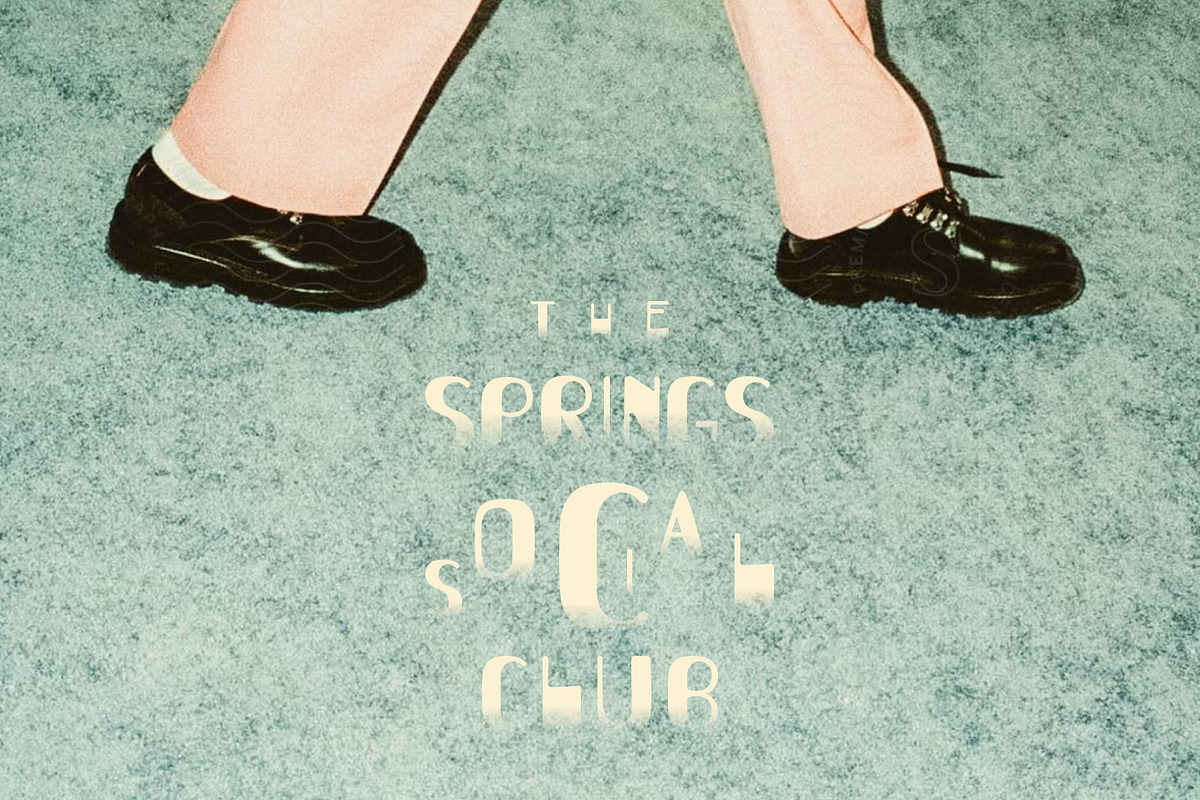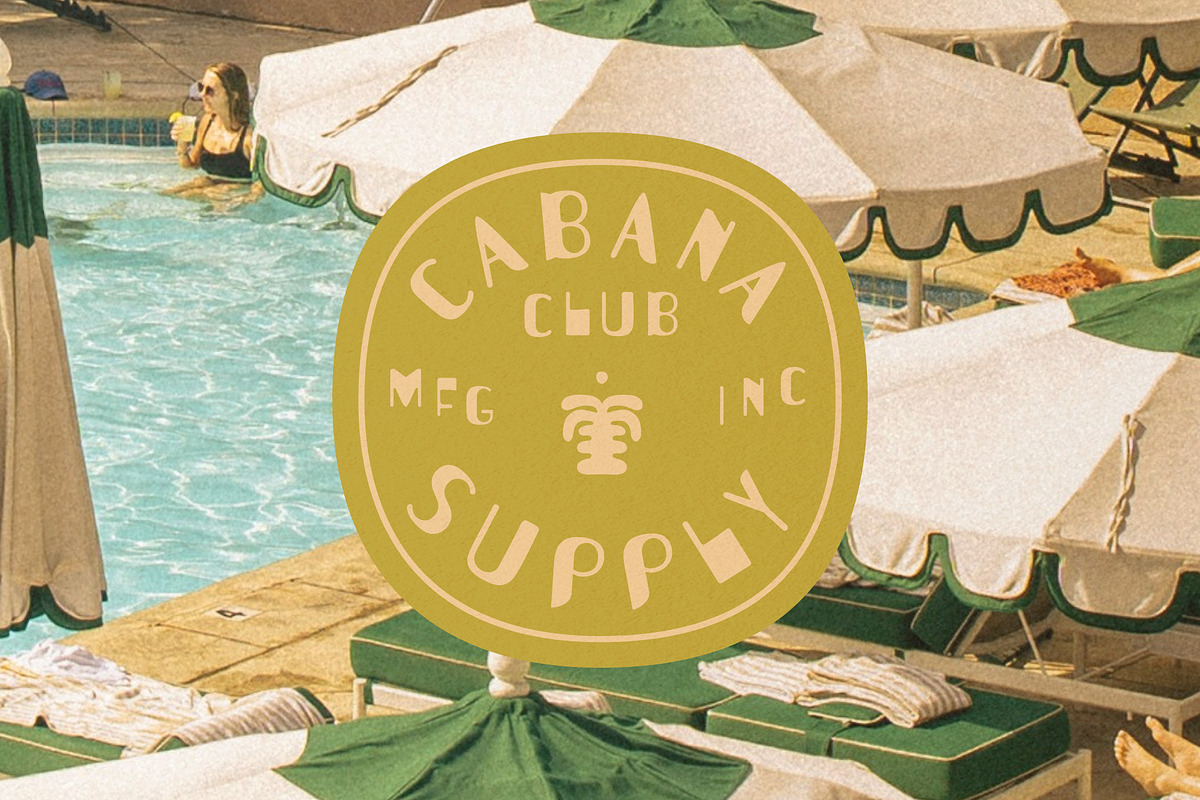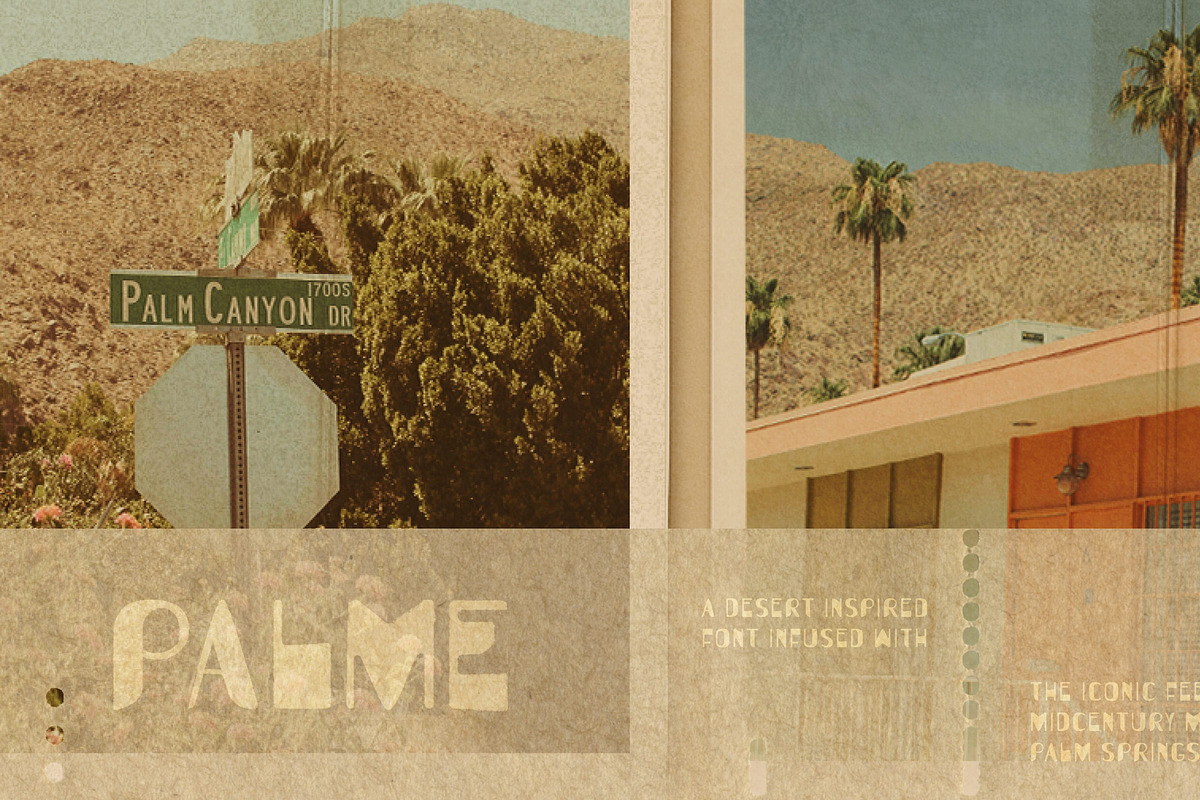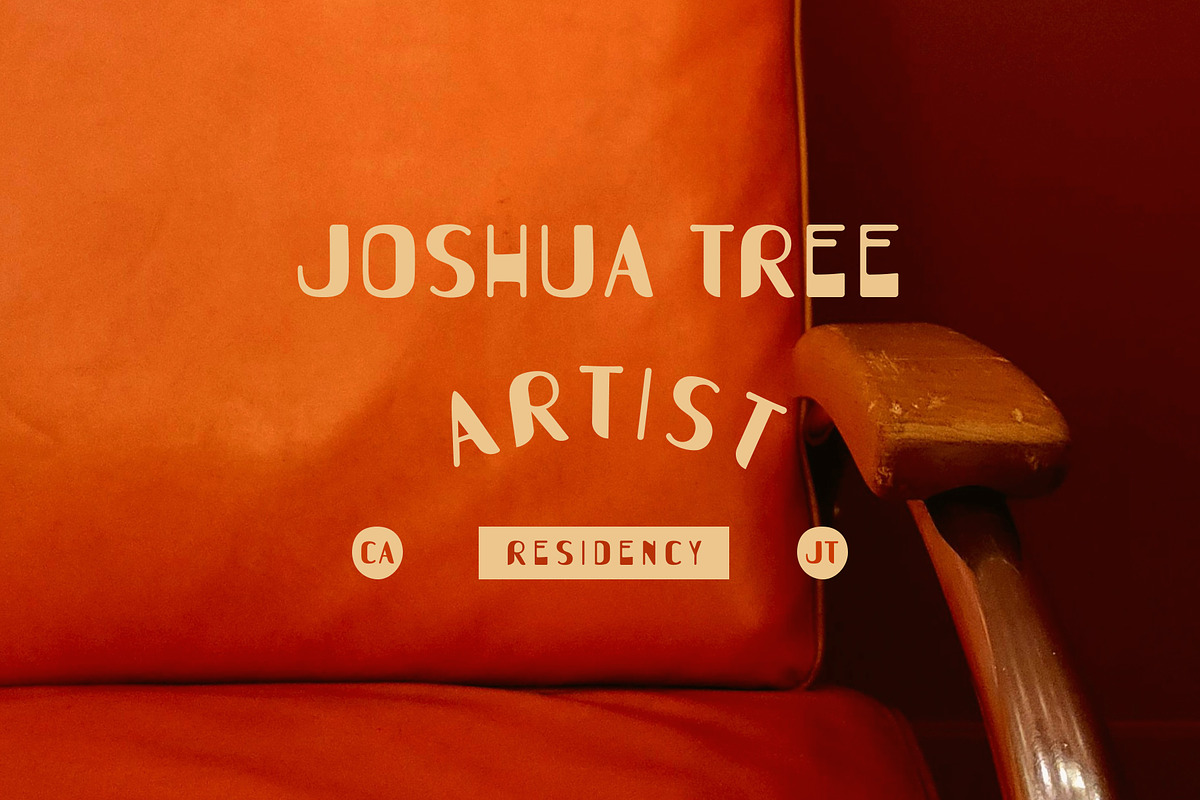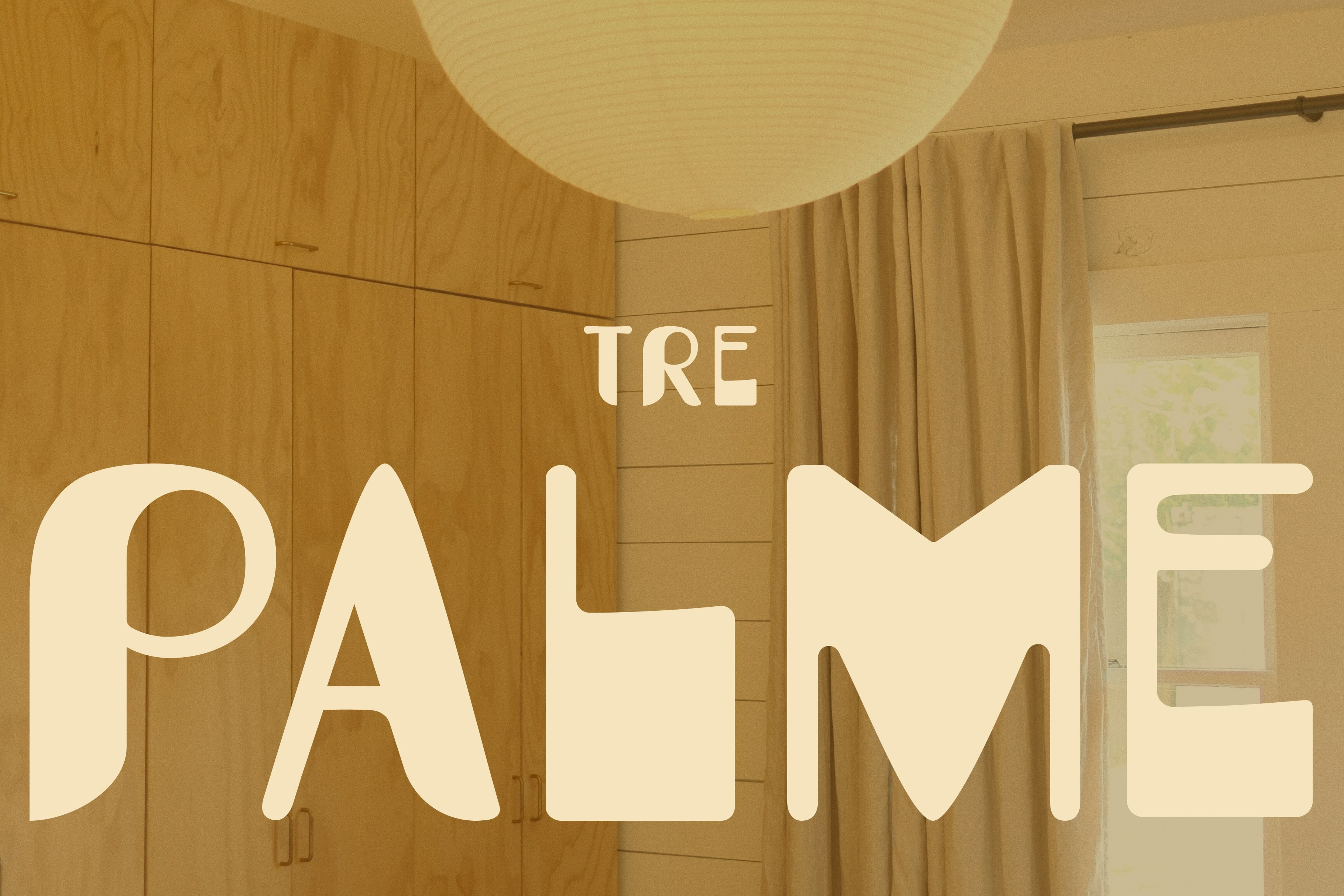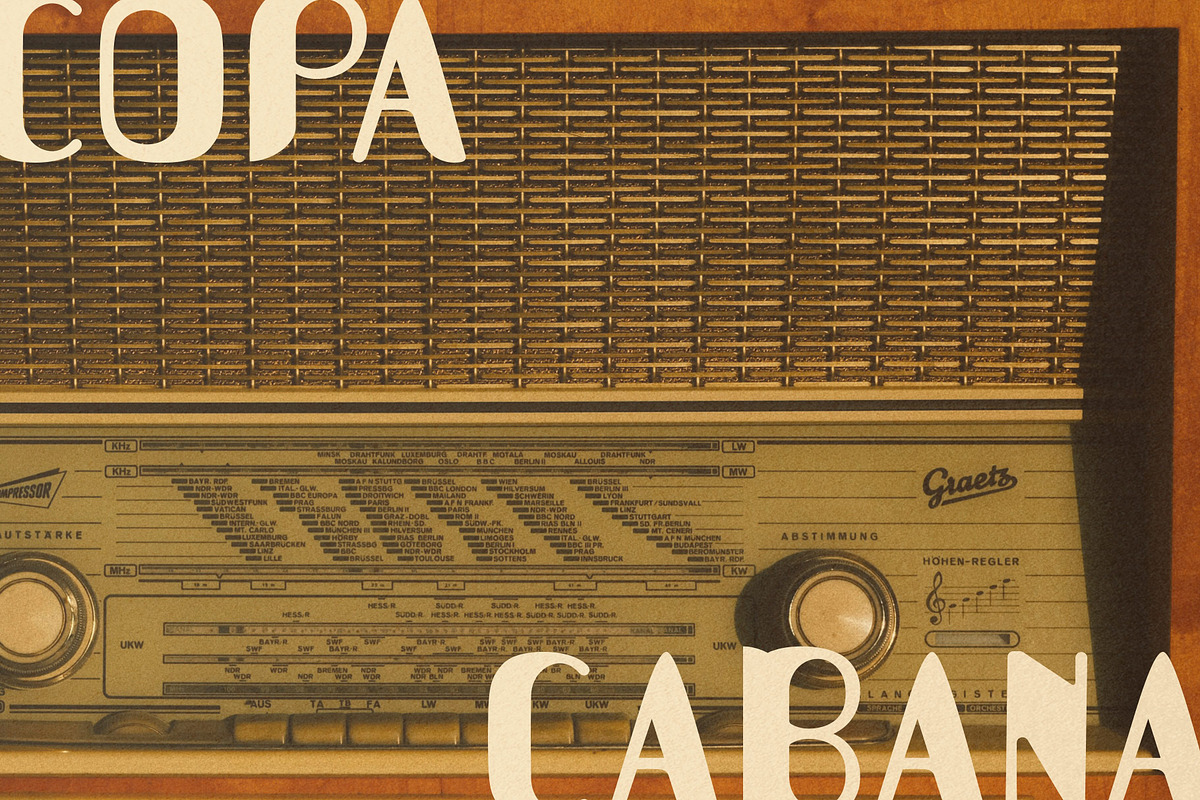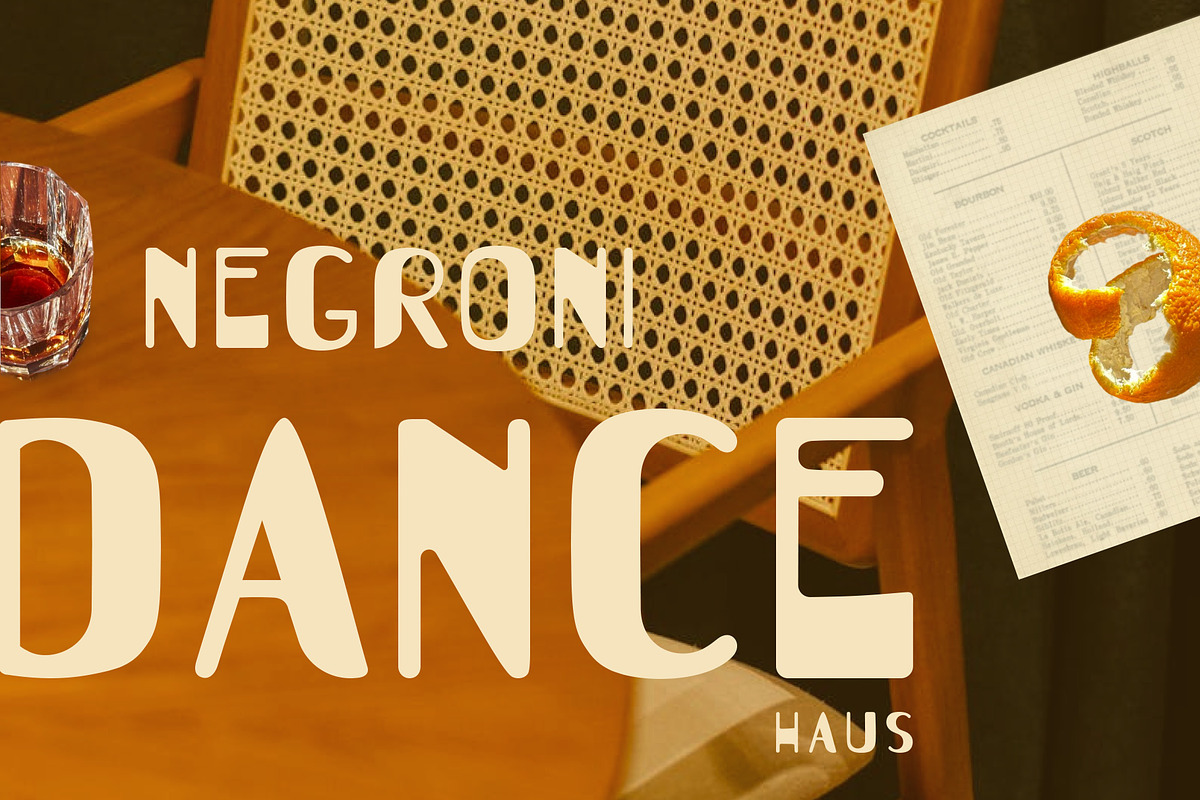
TRE PALME Midcentury Modern Font
A hand crafted font designed to bring the golden era of the desert into your brand experience. Inspired by the iconic, sun-drenched signage of Palm Springs, Tre Plame is a bold, mid-century modern display font capturing the nostalgia of retro Americana with a modern feel.
This font is like the first sip of a negroni on a pooldeck party in an architectural oasis where the guest list is strictly word-of-mouth. It's distinct shapes are perfect for everything from boutique hotel design, visuals for a craft cocktail menu, or creating high-impact vintage editorial layouts. Tre Plame brings an iconic destination touch to all of your work.
This custom font is inspired by 1950s architecture, the effortless feel of desert modernism, old Palm Springs parties, and is crafted with a feel that mimics a vintage Cadillac idling outside a roadside motel off Interstate 10. With its structural, era-centric charisma it is made for brands embodying a revival.
Branding & Logos: This all-caps font is perfect for retro cafes, modern interior designers, desert-inspired lifestyle brands, and boutique hotels.
Social Media: Create engagement-worthy Pinterest and Instagram content with a vintage editorial look.
Packaging: Ideal for everything you can dream up from apothecary labels, organic skincare, or even craft beverage cans.
Merchandise: Bold and timeless for all your branded products.
Identity Design: Infuse your branding with the look of old Palm Springs era design. Use this font on your typography, wordmarks, and more.
What’s Included: A complete alphabet and set of symbols with a uni-case style.